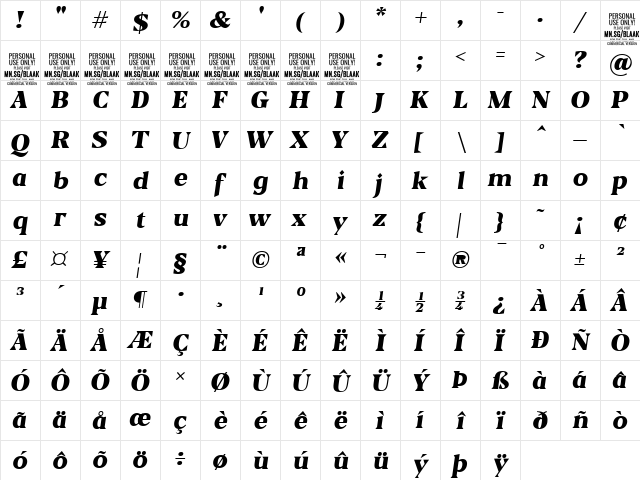
Blaak Black PERSONAL USE Italic
| Foundry | Mans Greback |
| Designer | Unidaas & Mans Greback |
Design Context for Blaak Black PERSONAL USE Typeface
Blaak Black PERSONAL USE offers clean, dependable letterforms without strong stylistic allegiance, making it a practical choice for designers who need flexibility. Its italic angle brings a sense of urgency and motion to the letterforms.